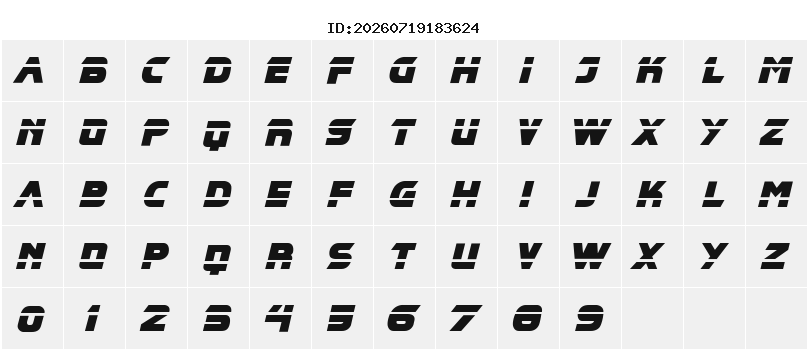
CCRunningWithScissors Preview
About CCRunningWithScissors.ttf
CCRunningWithScissors.ttf is a modern, elegant sans-serif font designed for ultimate readability and visual harmony. Perfect for branding, headlines, web design, and print materials.